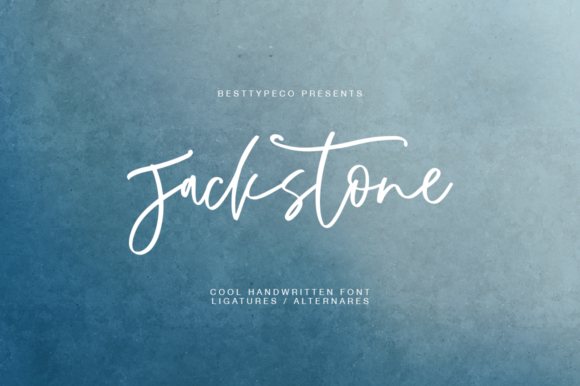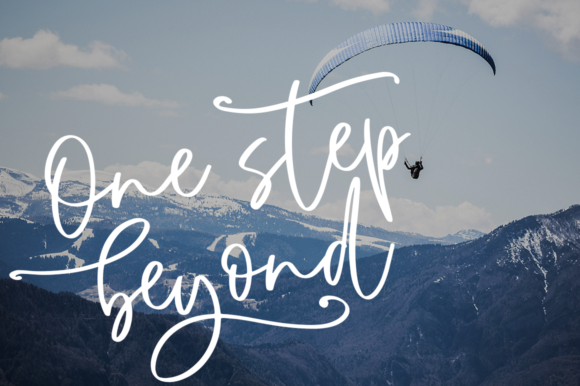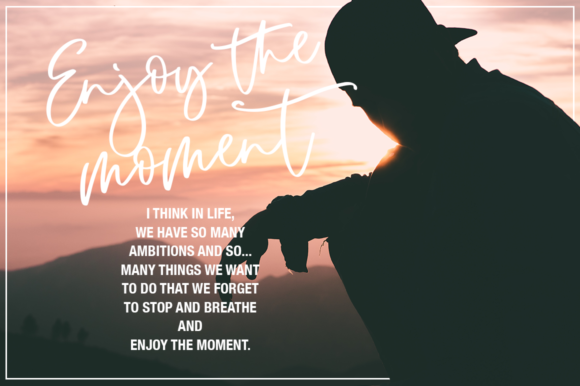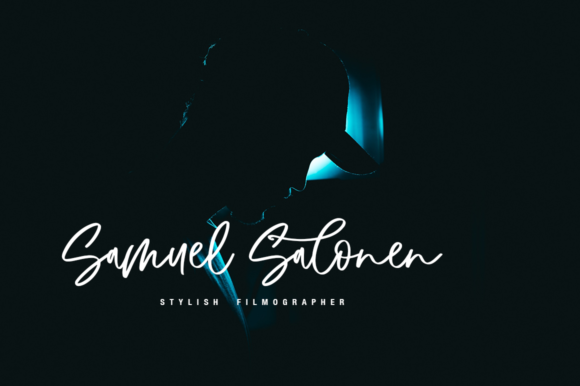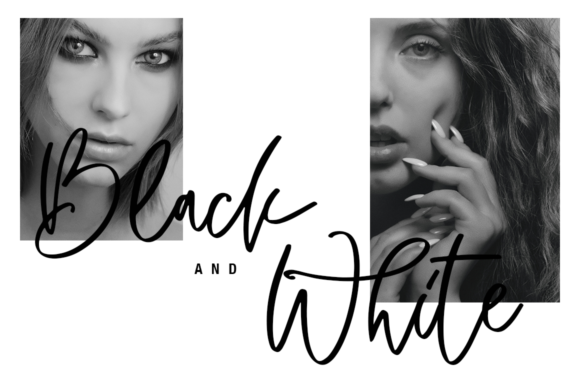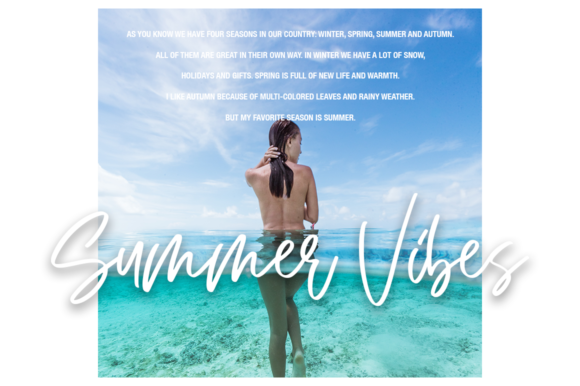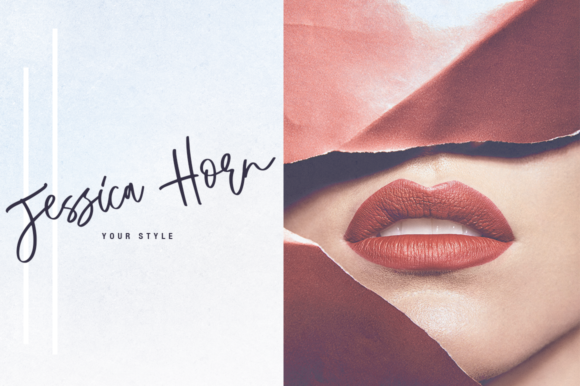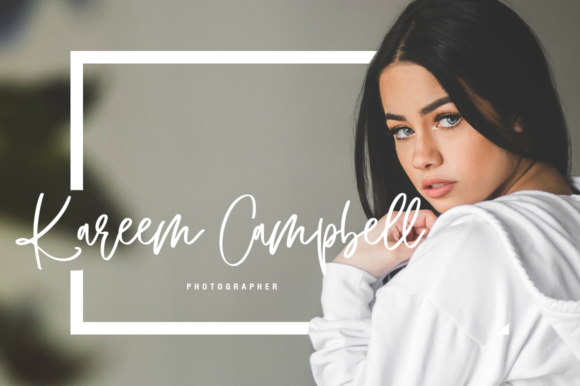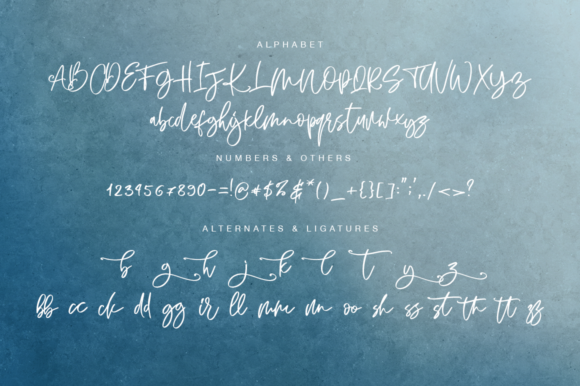
Jackstone Font
About Jackstone Font
Jackstone is a playful, yet cool script with a contemporary feel. It’s the perfect font for taking your crafting projects to the next level.